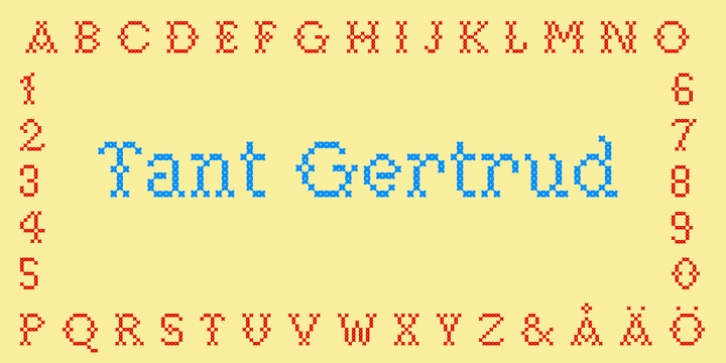
Tant Gertrud was designed by Lars Törnqvist and published by Cercurius. Tant Gertrud contains 1 style.
A cross-stitch font based on a classical pattern, including capital and lower-case letters for all Western languages.